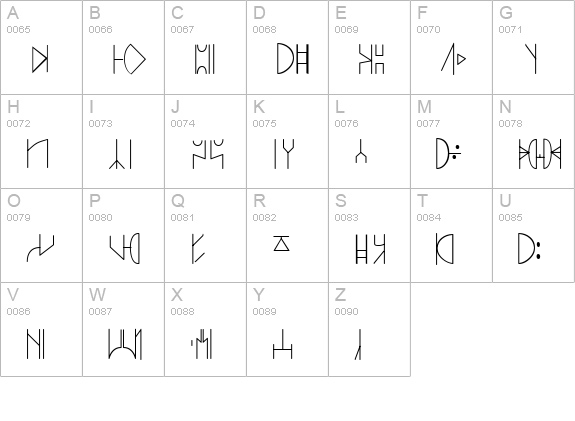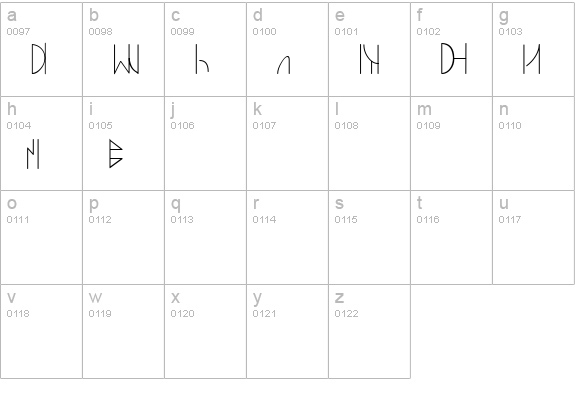
SWyavin4 Font Details
Introducing SWyavin4 font, a sleek and modern typeface designed to elevate your designs to the next level. This versatile font is perfect for a wide range of projects, from branding to marketing materials to website design. SWyavin4 features clean lines and a contemporary aesthetic that will make your text stand out with sophistication and style. What's even better is that SWyavin4 font is completely free to download at FontsMarket.com. Yes, you read that right - this high-quality font is available for you to use in your projects at no cost at all. Don't miss out on the opportunity to enhance your designs with SWyavin4 font, the perfect choice for those looking for a modern and professional typeface without breaking the bank. Download it now and start creating stunning visuals with ease.